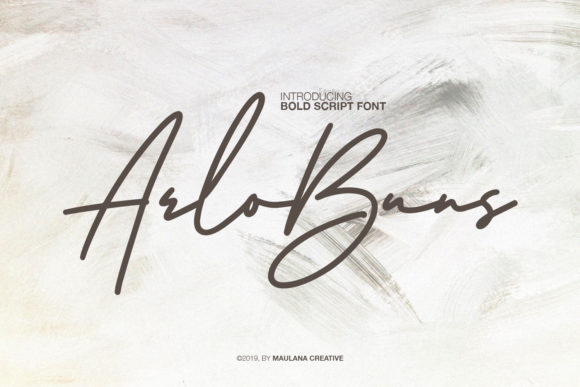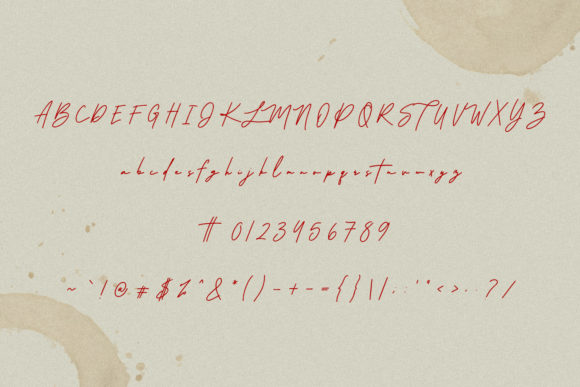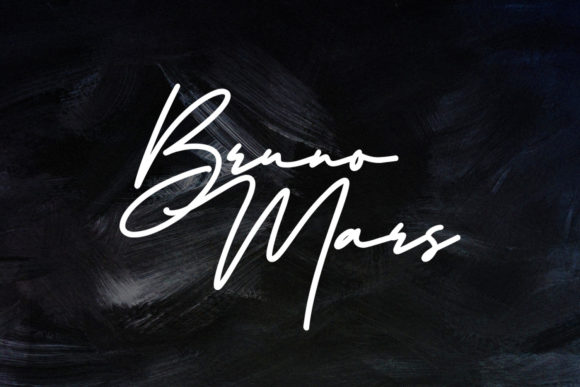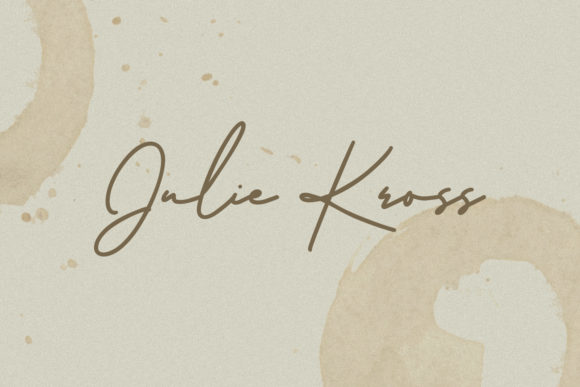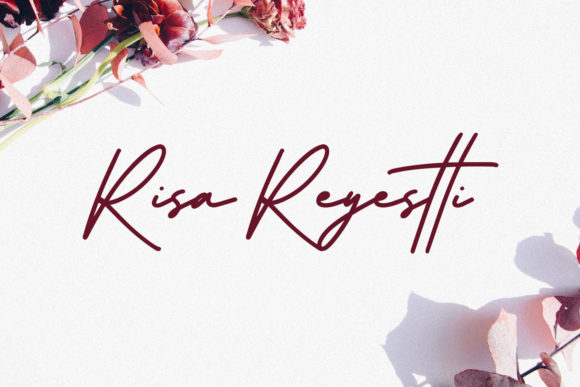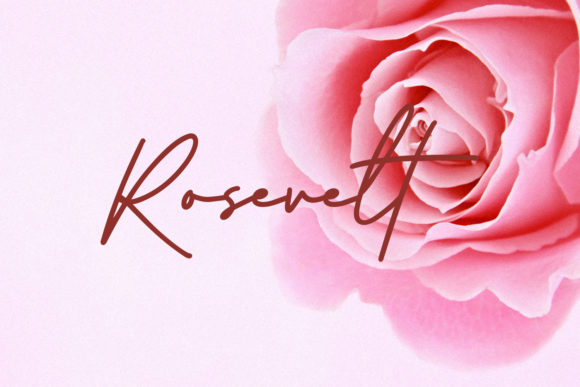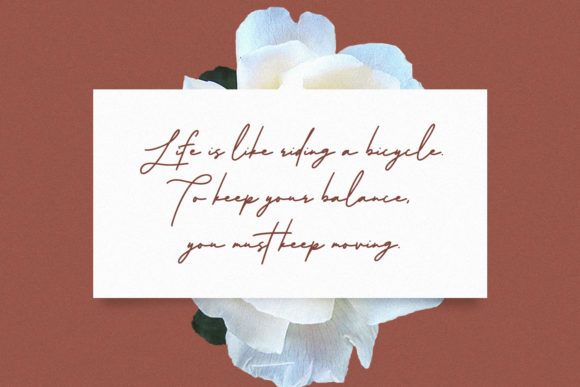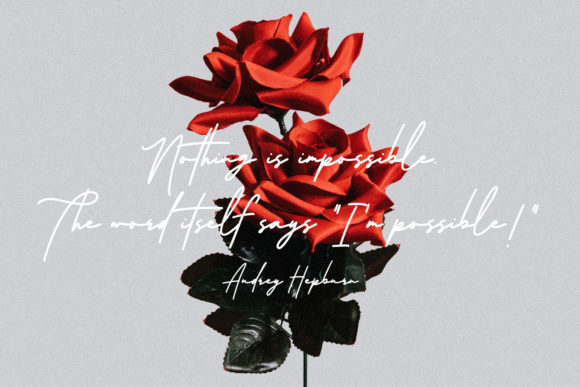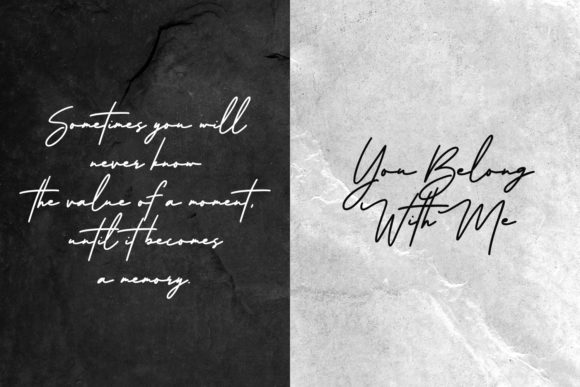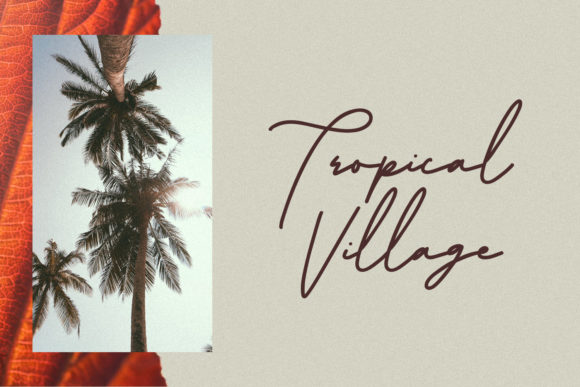
Arlobuns Font
About Arlobuns Font
Arlobuns is a sweet and friendly handwritten font with a beautiful touch. Use it to turn any design idea into a true standout!